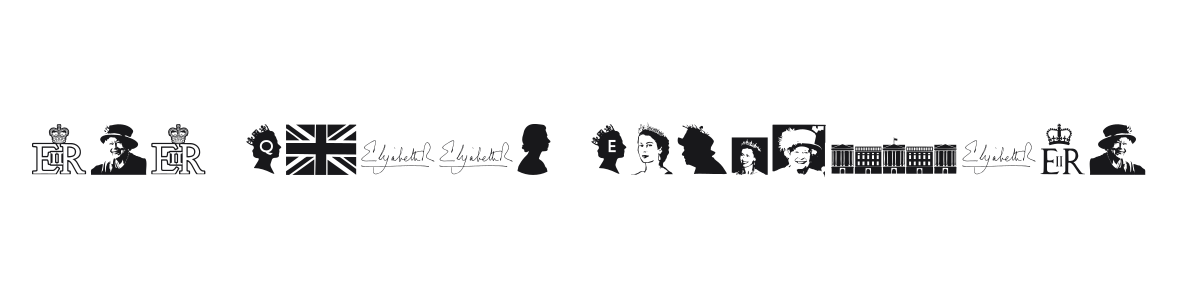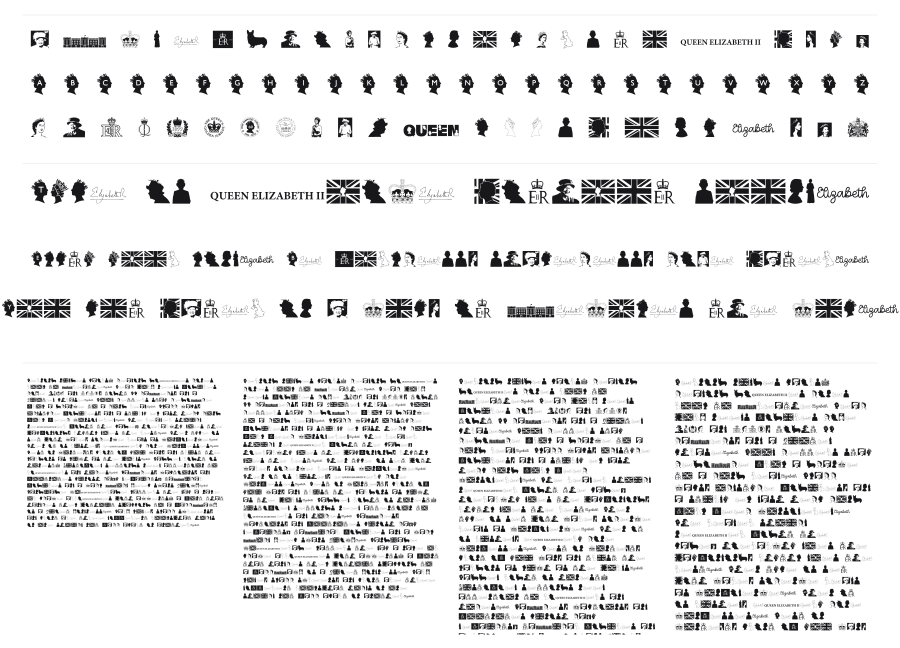
212 Queen Elizabeth
212 Queen Elizabeth is a 98-glyph dingbat font packed with silhouette icons honouring Queen Elizabeth II. Portraits, corgis, crowns, royal monograms, Buckingham Palace, and the Union Jack all make an appearance. A charming tribute set for commemorative designs, editorial projects, or anything requiring a dash of British royalty.